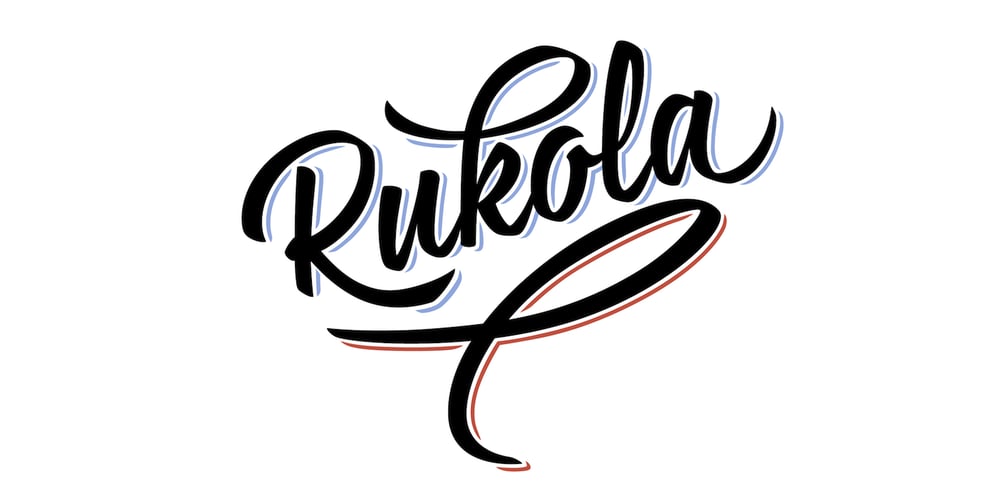
Rukola
Rukola font
Rukola Font Family was designed by Nikola Giacintová and published by Nikola Giacintova. Rukola contains 2 styles and family package options. Rukola, a friendly brush script that follows in the footsteps of sign painting, features an extensive character set and language support. Turn on the OpenType function and swash alternatives for a more authentic, original appearance. For select characters, simply use the number of spaces after the character to choose from an array of swashes on the final character. Rukola contains small caps for writing in large letters. The typeface is an original script for your poster, package and brand designs.